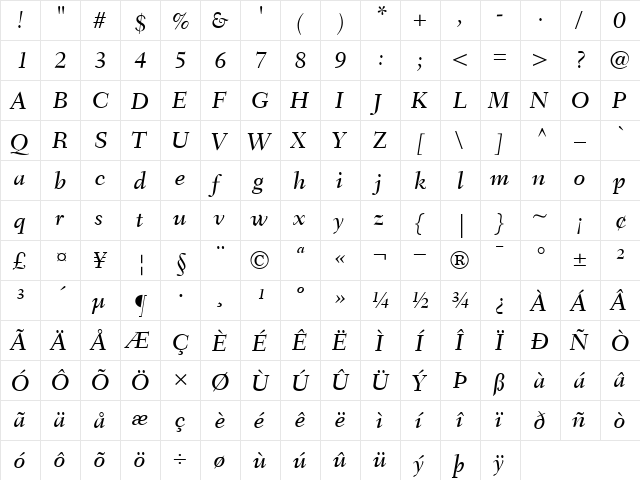
FairfieldLH56-Medium MediumItalic
Design Context for FairfieldLH56-Medium Typeface
FairfieldLH56-Medium takes a measured approach to typography — its balanced proportions and neutral character make it a reliable workhorse for both digital and print work. The slanted form adds forward momentum and visual energy.
Pro Tip: Try FairfieldLH56-Medium for annotation and caption copy alongside an upright companion — the contrast in angle creates a dynamic but ordered typographic system.